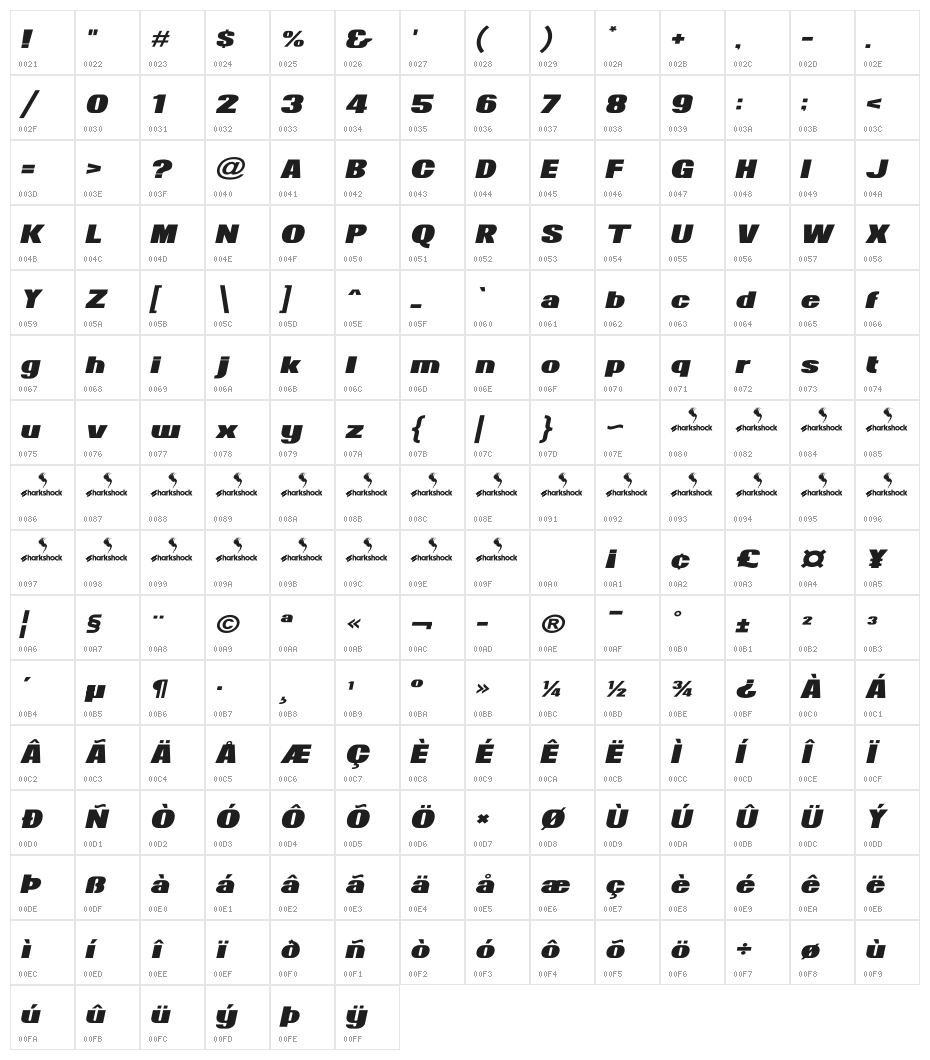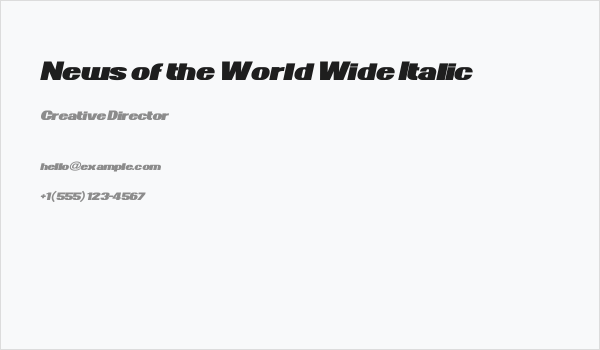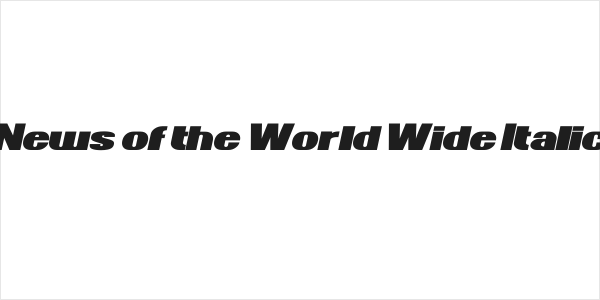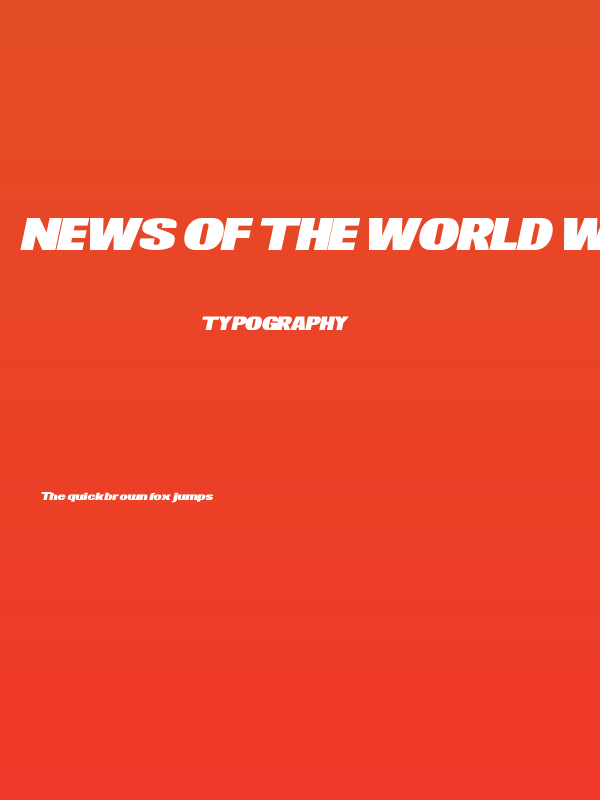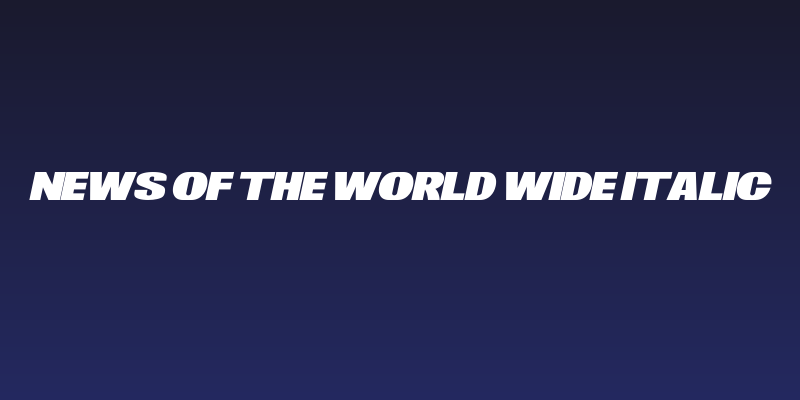
News of the World Wide Italic Font
News of the World Wide Italic Description
This font exhibits a bold and dynamic style with a strong italic slant, giving it a sense of movement and urgency. The characters are wide and robust, with a consistent stroke weight that enhances readability while maintaining a powerful presence. The uppercase and lowercase letters are well-proportioned, and the numerals are clear and distinct. Special characters are included, maintaining the same bold and italicized style, making it versatile for various applications. The overall design is modern and impactful, suitable for attention-grabbing headlines or branding materials.
| Use Case | Headlines, Logos, Advertising |
| Proposed Projects | Ideal for headlines, advertising, branding, and any project requiring a strong, impactful typeface. |